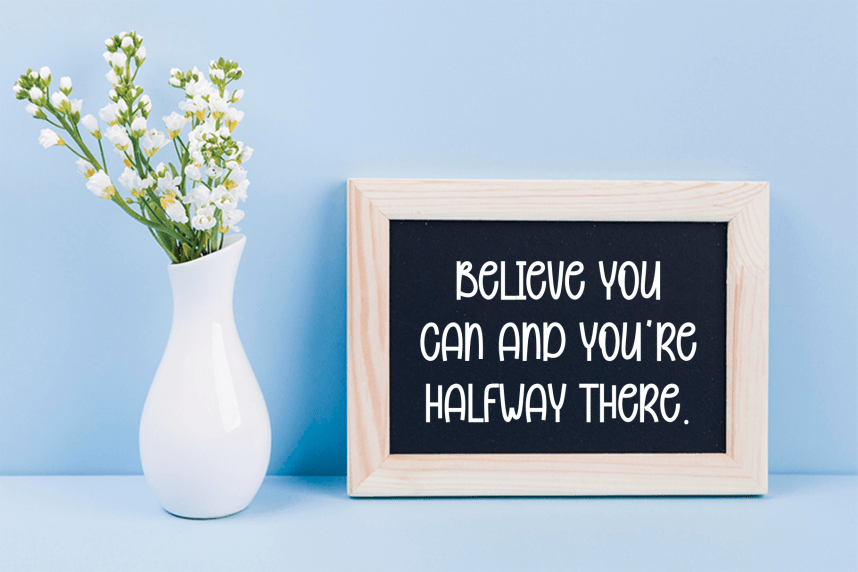
Bubble Playful Font
Bubble Playful Font is a sweet and friendly handwritten display font. Cute and fun, this font is ideal for writing wedding invitations, cards, or any other design that might need a playful touch!